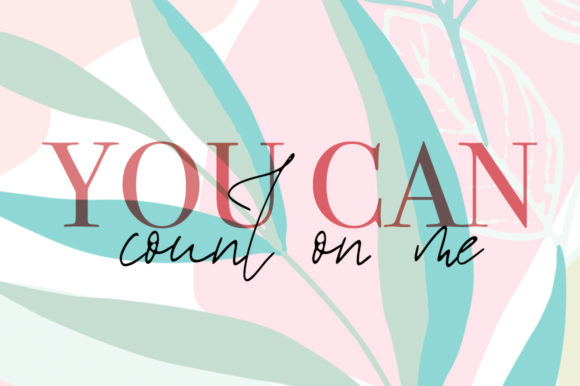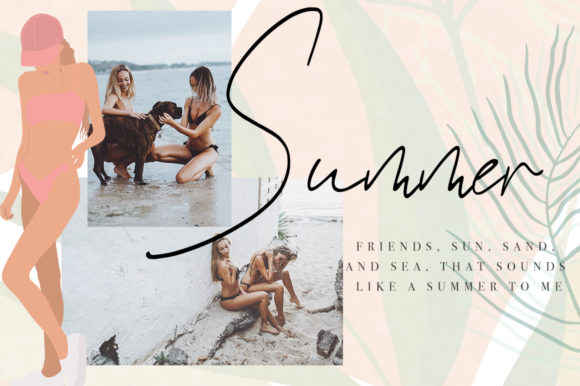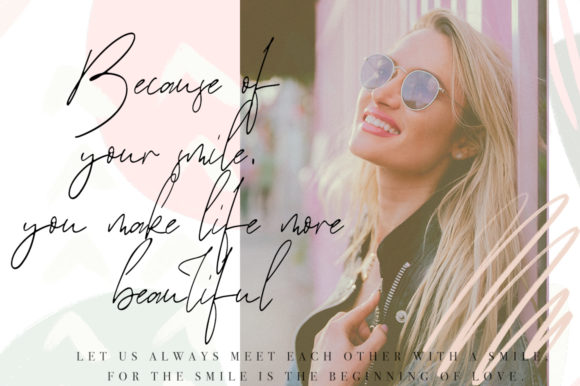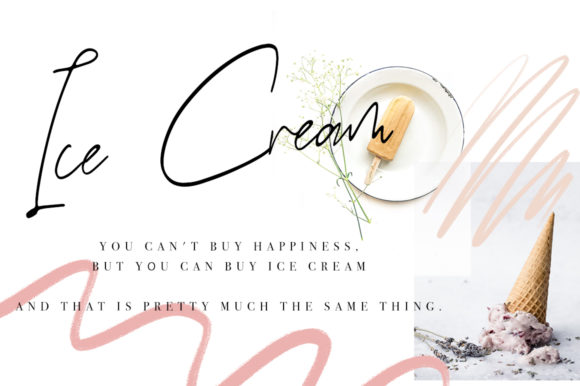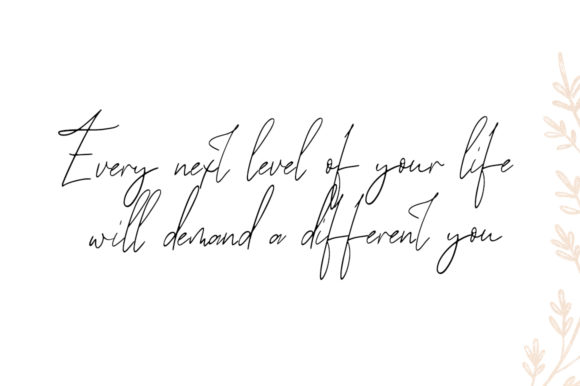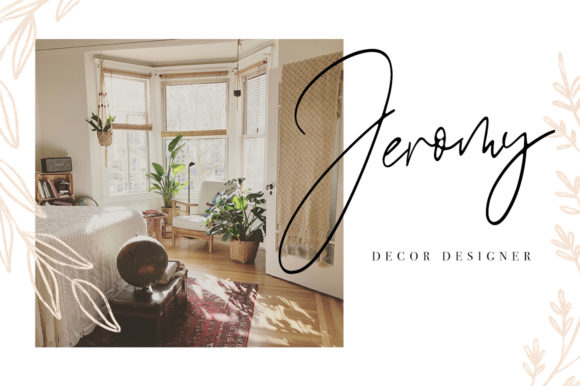
Introducing Hamorry Font: Elevate Your Designs with a Personal Touch
Are you tired of using the same old fonts in your design projects? Do you want to add a personal touch that sets your work apart from the rest? Look no further than Hamorry Font, a light, cool, and contemporary handwritten font that’s perfect for designers and crafters alike. With its smart feel and versatility, Hamorry is the ideal choice for anyone looking to add a unique vibe to their designs.
What is Hamorry Font?
Hamorry Font is a beautifully crafted handwritten font that’s designed to bring a touch of personality to your designs. Its light and airy feel makes it perfect for use in a variety of projects, from branding and packaging to social media graphics and website headers. With its clean lines and modern aesthetic, Hamorry is sure to impress even the most discerning designers and clients.
Key Features of Hamorry Font
- Light and airy feel: Hamorry Font has a delicate, refined quality that makes it perfect for use in designs where a subtle touch is desired.
- Cool and contemporary style: With its modern aesthetic and sleek lines, Hamorry is the perfect choice for designers who want to create fresh and stylish designs.
- Smart feel: Hamorry Font has a sophisticated, intelligent feel that makes it perfect for use in professional designs, such as business cards, brochures, and website headers.
- Handwritten style: With its unique, handwritten style, Hamorry Font adds a personal touch to any design project, making it perfect for crafters and designers who want to create one-of-a-kind designs.
Why Choose Hamorry Font?
So why choose Hamorry Font over other fonts on the market? Here are just a few reasons why Hamorry stands out from the crowd:
- Versatility: Hamorry Font is incredibly versatile, making it perfect for use in a wide range of design projects, from digital designs to print materials.
- Ease of use: With its clean lines and simple aesthetic, Hamorry Font is easy to read and use, even for designers who are new to working with handwritten fonts.
- Unique style: Hamorry Font has a unique, one-of-a-kind style that sets it apart from other fonts on the market, making it perfect for designers who want to create distinctive designs.
How to Use Hamorry Font in Your Designs
Using Hamorry Font in your designs is easy. Here are a few tips to get you started:
- Pair it with bold fonts: Hamorry Font pairs perfectly with bold, sans-serif fonts, making it perfect for use in designs where contrast is key.
- Use it in headlines: With its bold, confident style, Hamorry Font is perfect for use in headlines and titles, where it can help grab the reader’s attention.
- Add a personal touch: Use Hamorry Font to add a personal touch to your designs, such as in quotes, testimonials, or other types of written content.
In conclusion, Hamorry Font is a versatile, stylish, and contemporary handwritten font that’s perfect for designers and crafters who want to add a personal touch to their designs. With its light, cool, and smart feel, Hamorry is the ideal choice for anyone looking to create unique and eye-catching designs. So why wait? Download Hamorry Font today and start elevating your designs to the next level!